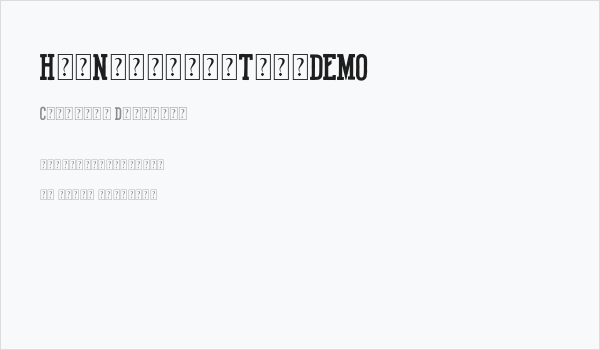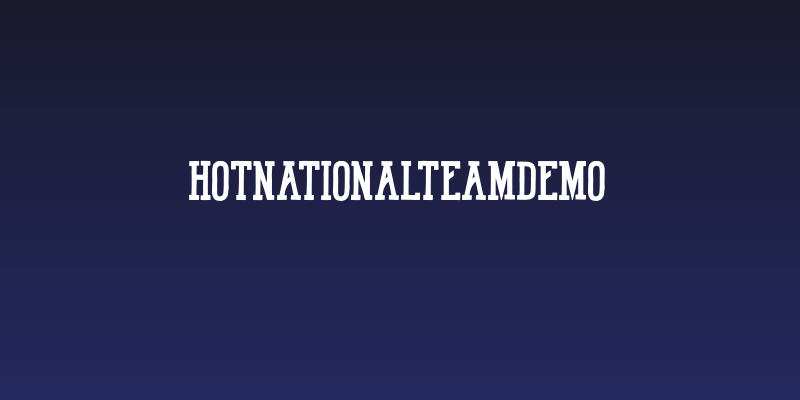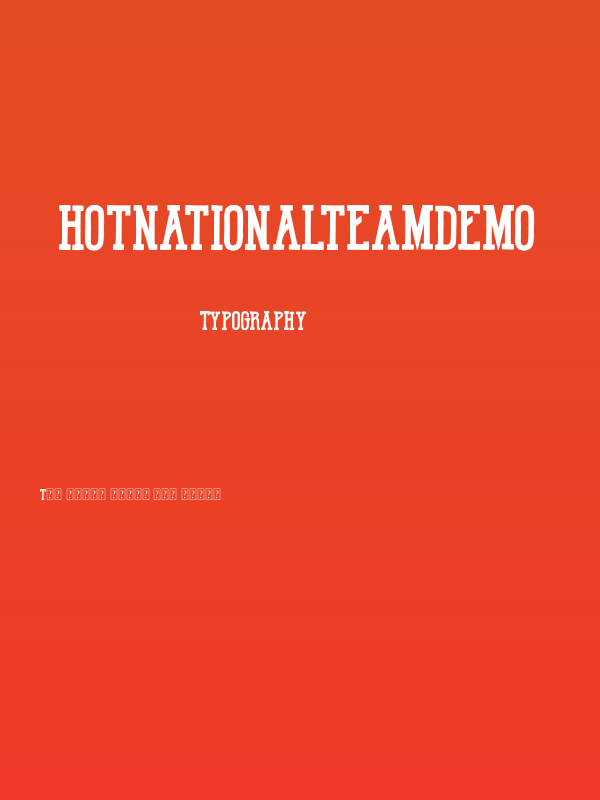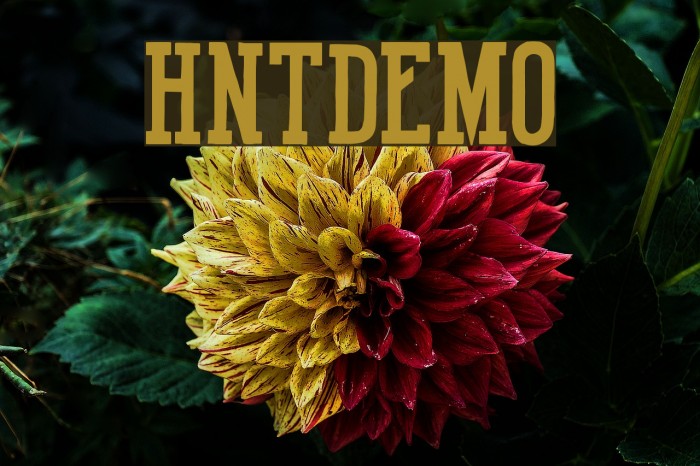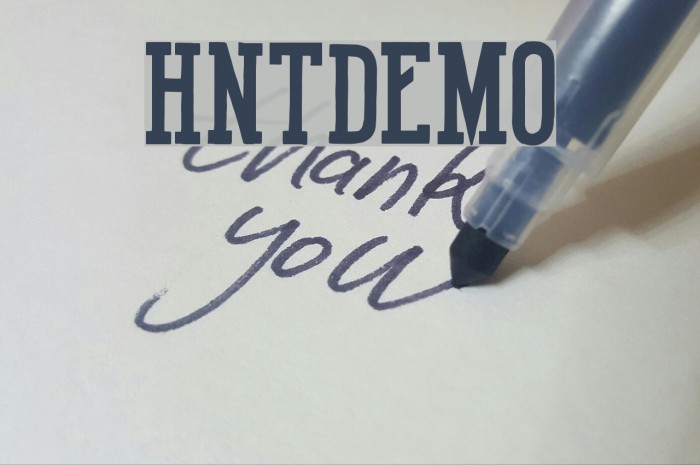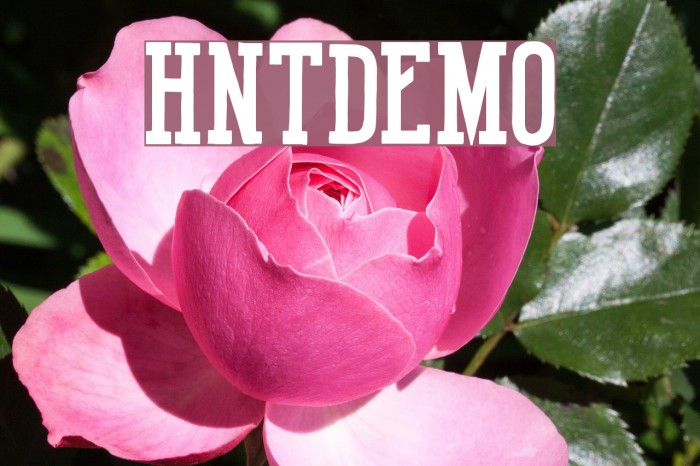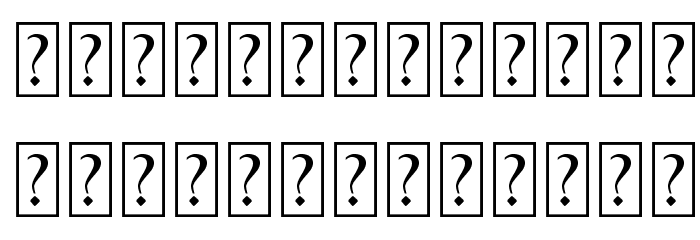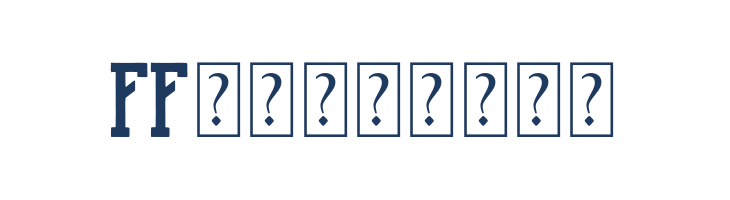
HotNationalTeamDEMO Font
HotNationalTeamDEMO Description
This font features bold, uppercase letters with a strong presence, characterized by thick strokes and a slab serif style. The design is reminiscent of vintage sports or collegiate themes, with a robust and authoritative appearance. The letters are evenly spaced, providing a balanced and structured look. The font's boldness and slab serifs make it ideal for creating impactful headlines or titles. Its classic yet bold style can evoke a sense of tradition and strength, making it suitable for projects that require a commanding visual presence.
| Proposed Projects | Ideal for sports team branding, posters, headlines, and retro-themed designs. |